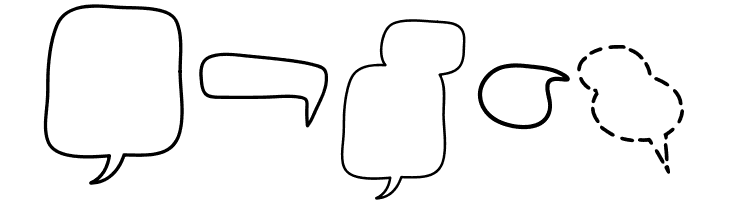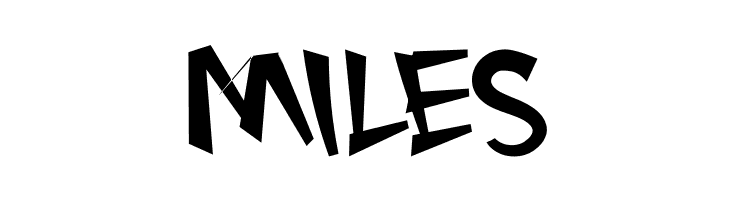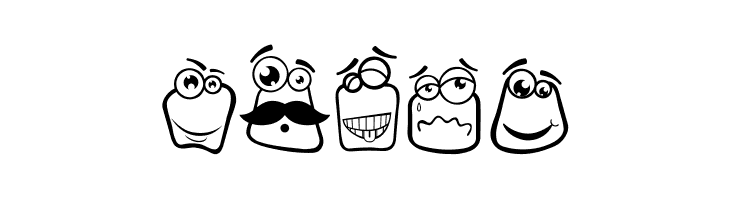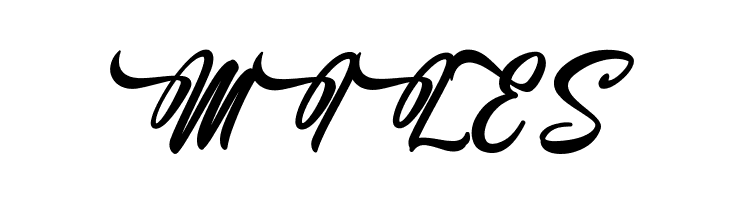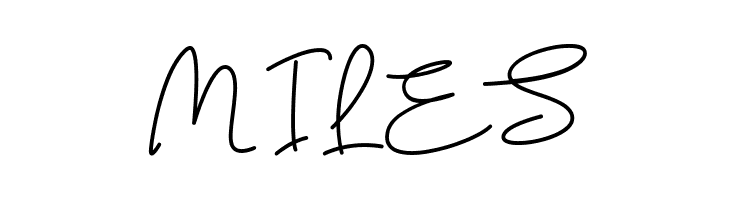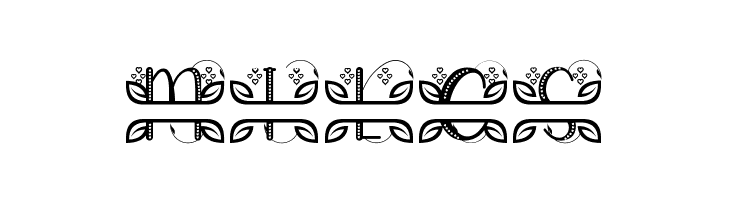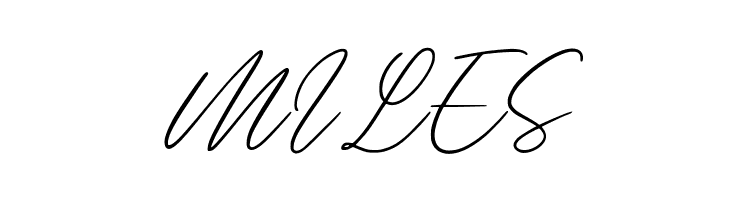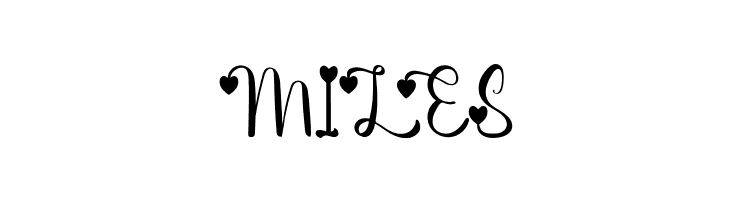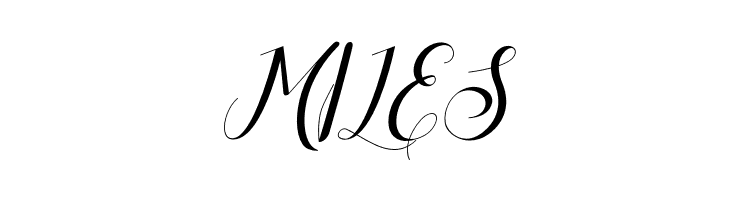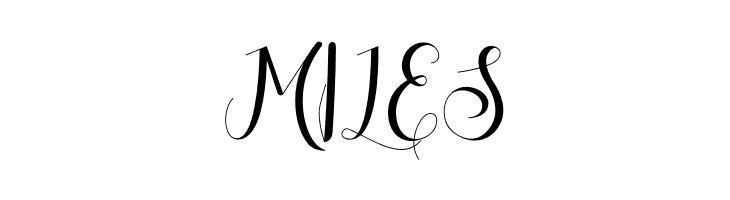
A dynamic and expressive script font with fluid, cursive strokes.
A bold, gothic-inspired font with sharp, intricate detailing.
An elegant, flowing script font with a cursive, handwritten style.
A modern, geometric sans-serif font with uniform strokes and balanced design.
A modern, geometric sans-serif font with clean lines and rounded edges.
A modern, geometric sans-serif font with a clean and uniform appearance.
A modern, geometric sans-serif font with clean lines and balanced spacing.
A bold, expressive script font with flowing, cursive letterforms and decorative flair.
An elegant, ornate script font with intricate flourishes and calligraphic style.
A bold, geometric font with sharp, angular design elements.
A bold, geometric font with sharp angles and a modern style.
A modern, geometric font with clean lines and a bold presence.
A bold, geometric font with a modern and impactful design.
A bold, geometric typeface with strong, angular shapes and a modern aesthetic.
A sleek, geometric font with a modern and minimalistic design.
A playful, cartoon-like font with bold, irregular strokes and dynamic shapes.
Hand-drawn comic speech and thought bubble dingbats.
Comic-style speech and thought bubble dingbats in various outlines and fills.
Cartoonish, expressive font with each character as a unique emoji face.
An intricate and decorative monogram font with ornate flourishes.
A bold, dynamic script font with fluid, expressive strokes.
A bold, dynamic script font with angular uppercase and fluid lowercase letters.
A cursive, handwritten font with elegant, flowing lines.
An elegant, flowing script font with ornate swashes and seamless connections.
A bold, brush-style font with dynamic, hand-painted strokes.
A fluid, cursive script font with elegant, connected strokes.
A playful, narrow font with rounded edges, perfect for creative projects.
A whimsical, heart-embellished decorative font with a playful and romantic style.
A playful, heart-embellished font with bold uppercase and cursive lowercase letters.
An elegant, flowing script font with intricate loops and swirls.
A bold, elegant script font with ornate uppercase and flowing lowercase letters.
A dynamic, cursive script font with a lively, handwritten style.
A bold, slanted script font with dynamic strokes and a handwritten feel.
A bold, expressive script font with a lively, handwritten style.